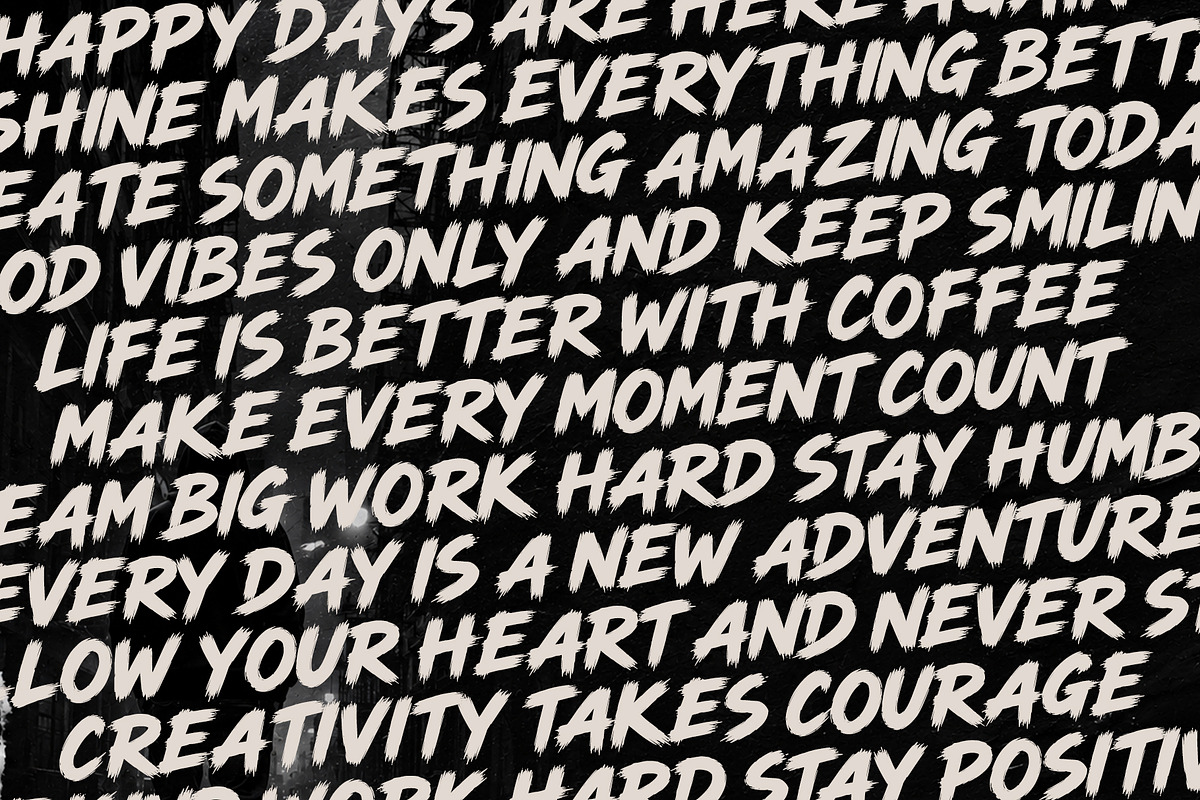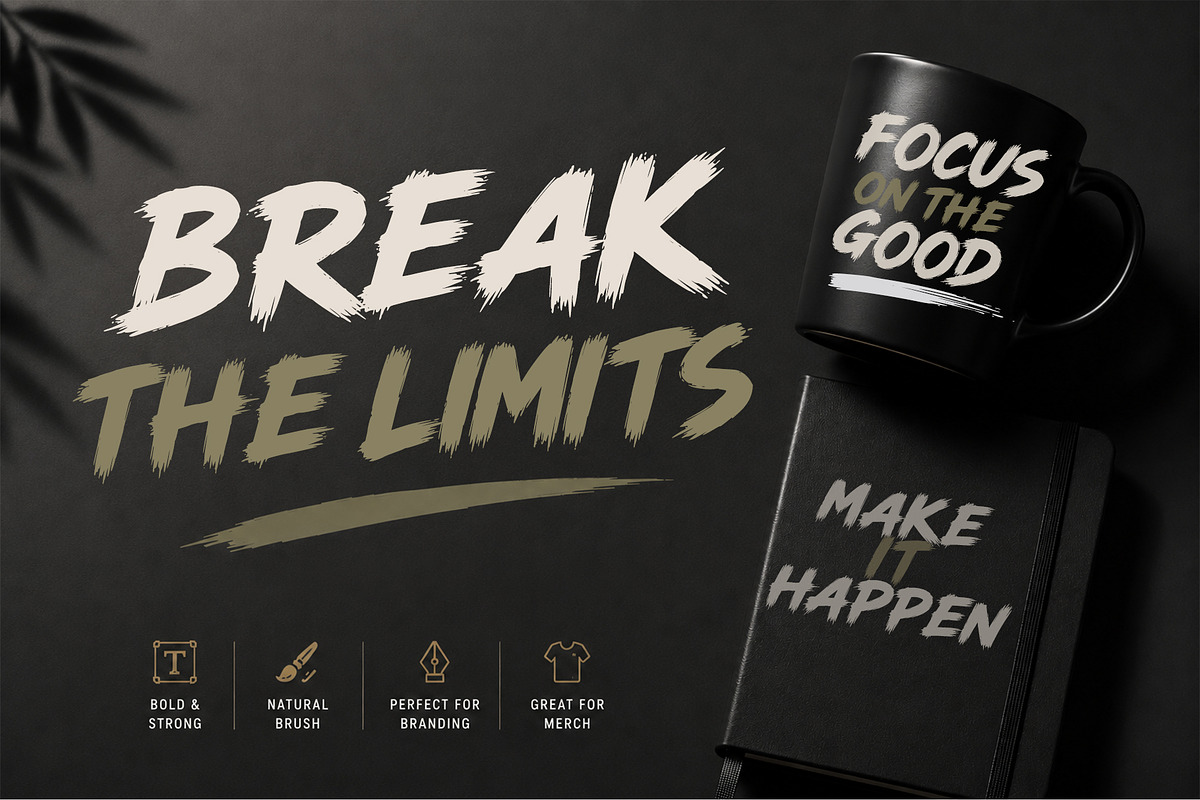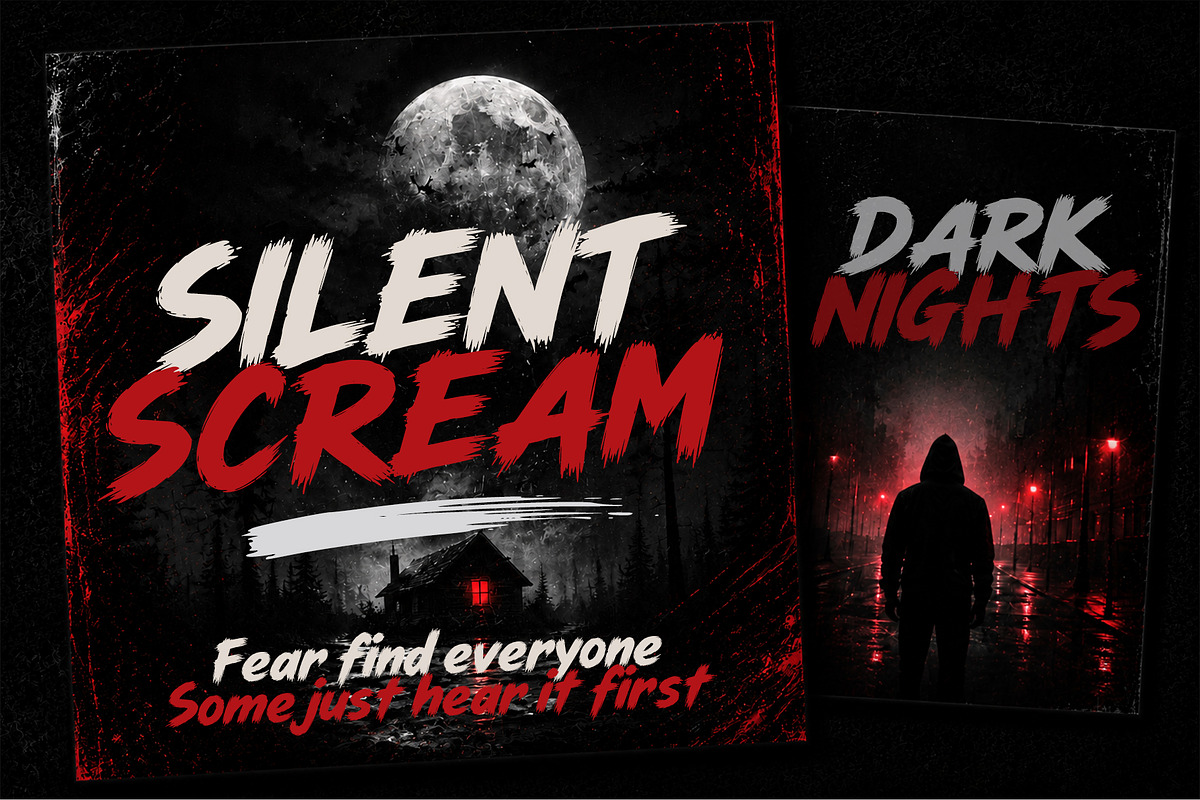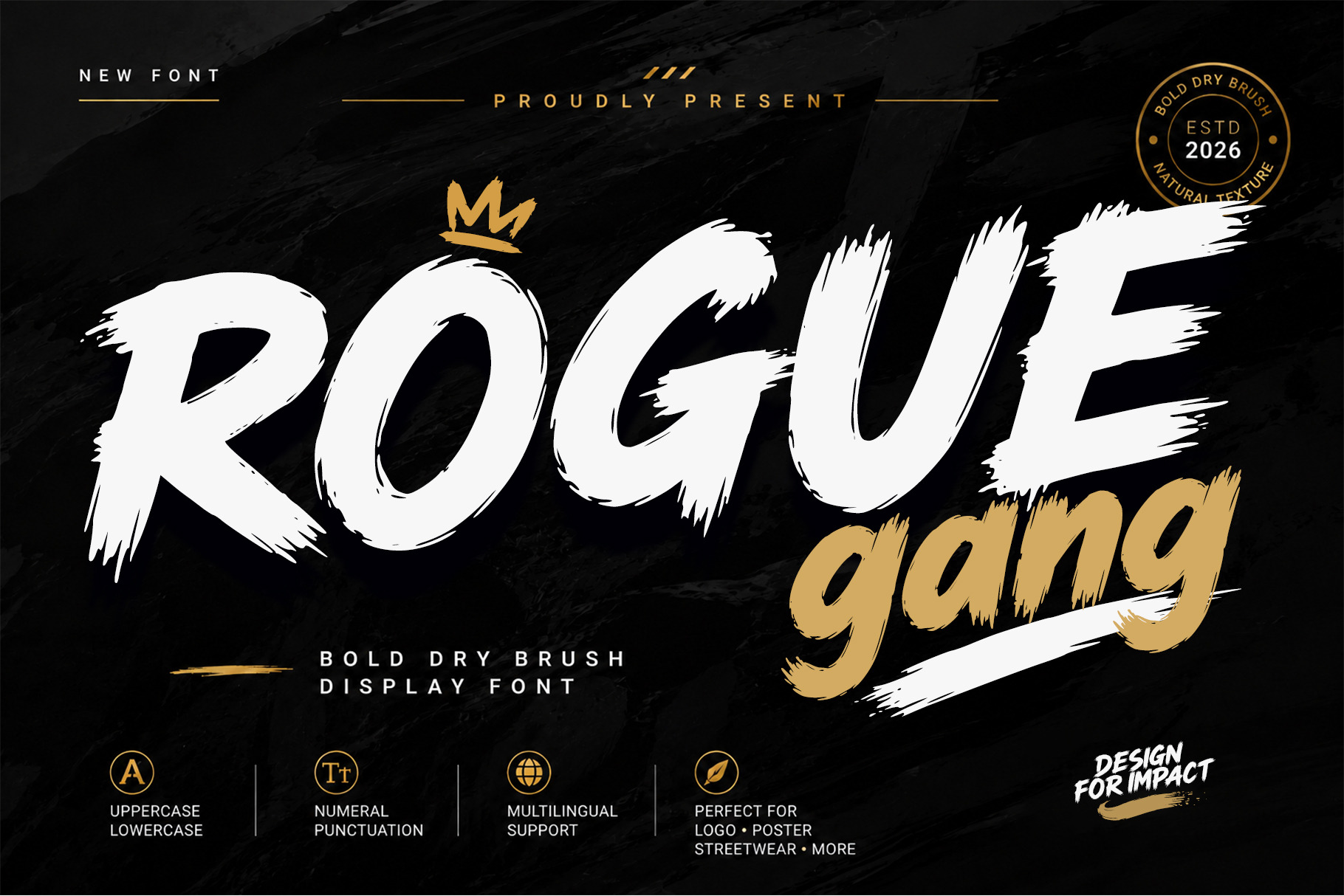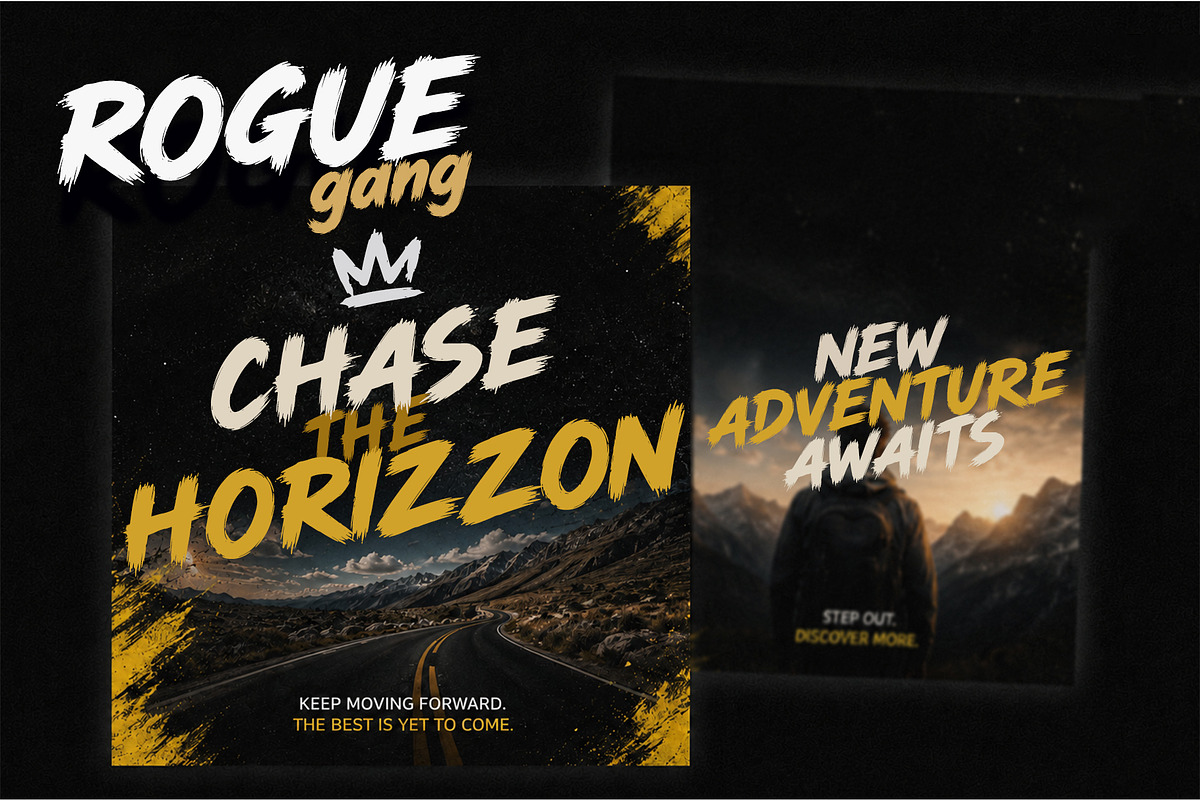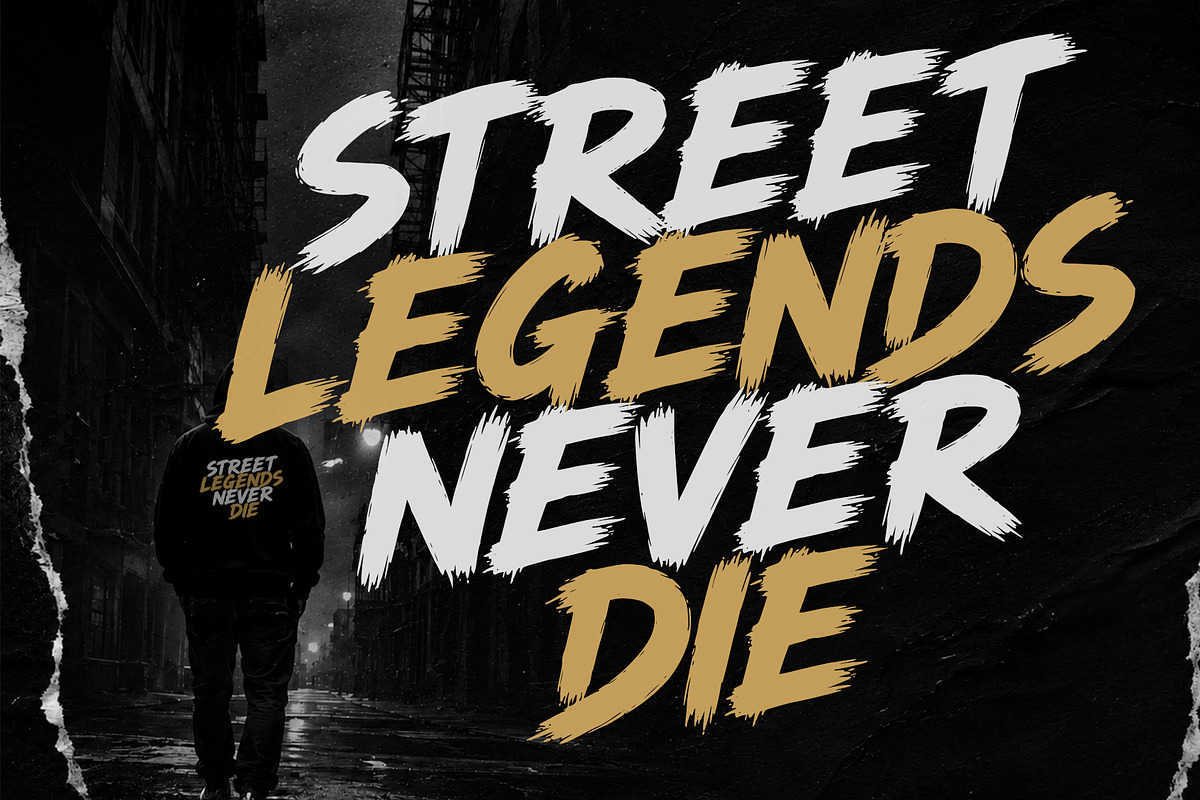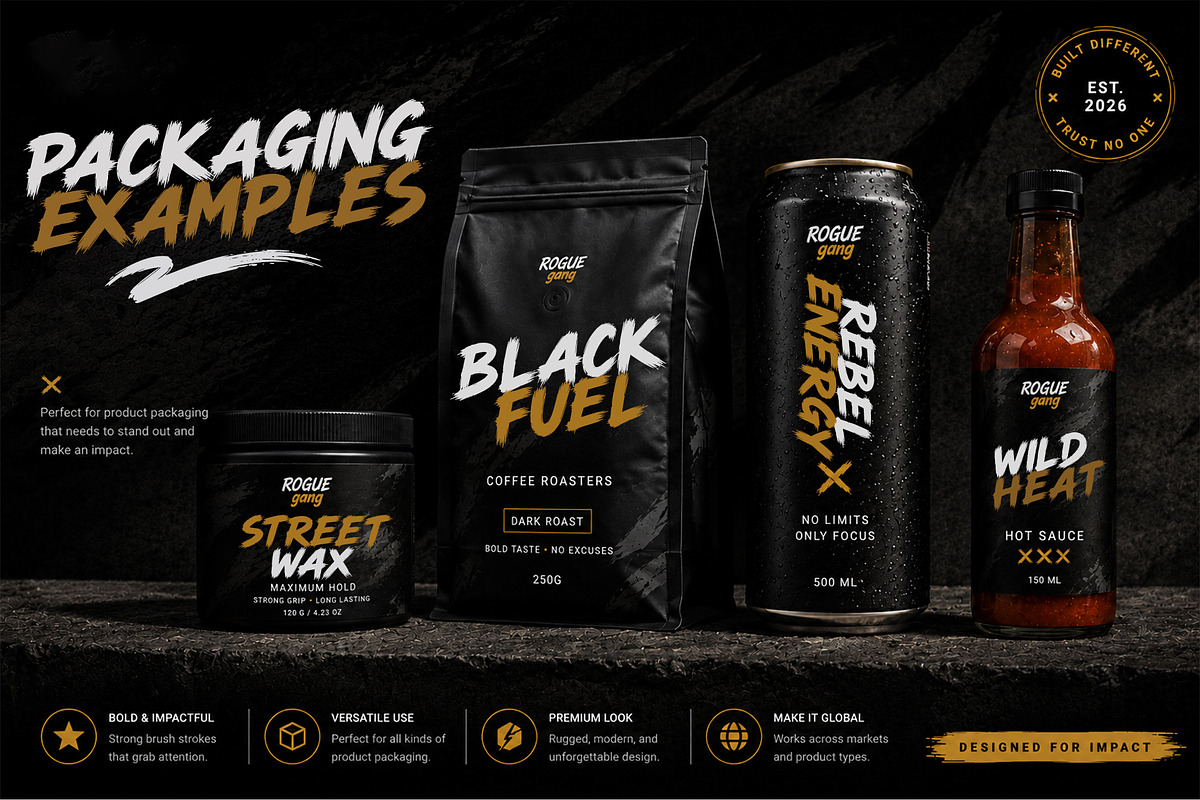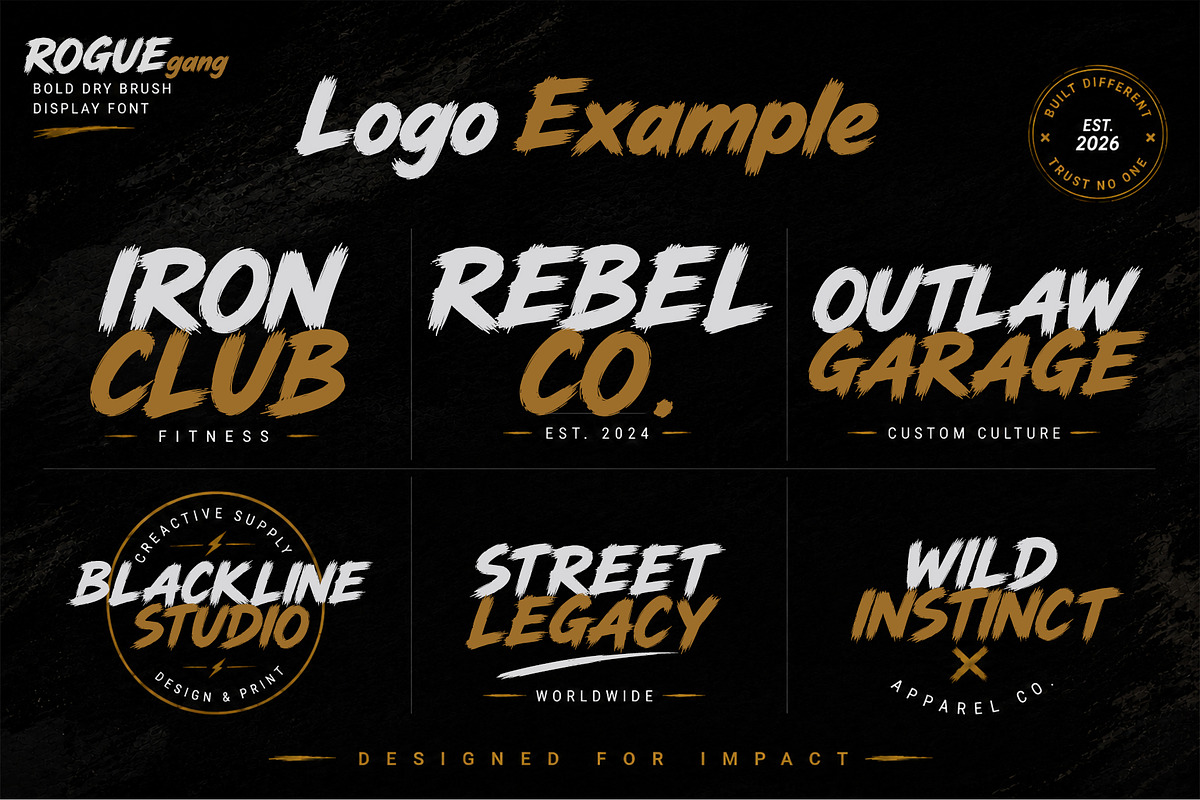
Roguegang Brush Font
Rogue Gang
Rogue Gang is a bold dry brush display font designed to bring energy, confidence, and authenticity to every project. Featuring handcrafted brush strokes with natural dry texture, this typeface delivers a strong visual impact while maintaining excellent readability.
Each character is carefully crafted to create a dynamic and expressive look, making it suitable for designs that need a bold, modern, and artistic appearance. Whether used for branding, promotional materials, or creative layouts, Rogue Gang adds a distinctive handcrafted feel that stands out across both digital and print media.
Perfect for creating eye-catching headlines, logos, packaging, apparel, posters, social media graphics, and many other creative applications.